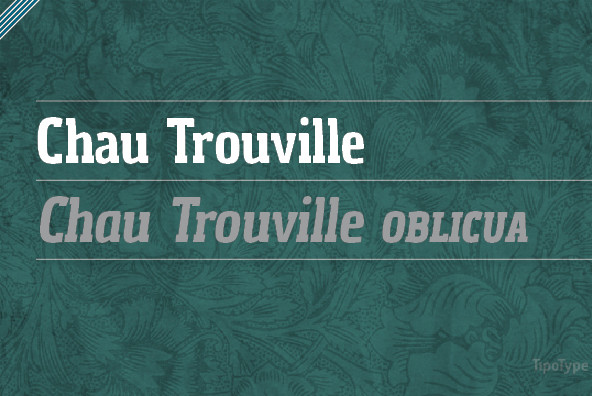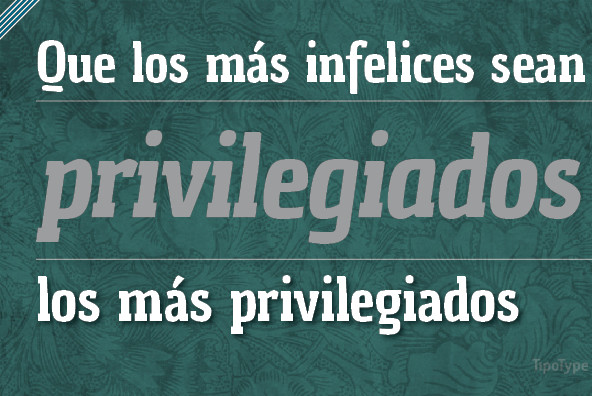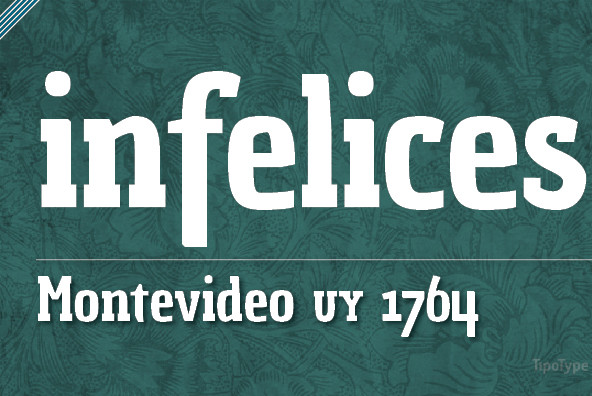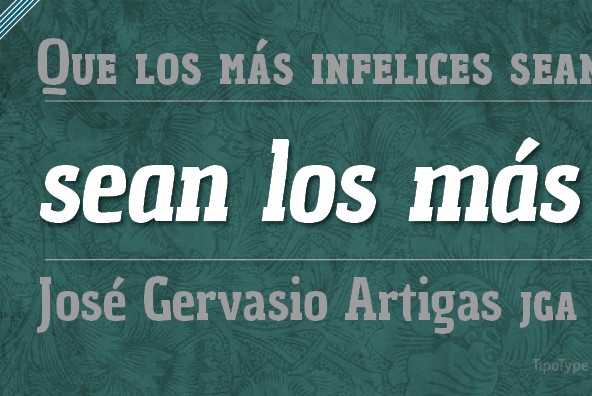
Chau Trouville
Foundry: TipoType
Trouville is part of the Chau family, is the rounded version. These typefaces are ideal for headlines. Are condensed and robust: they have impact and saving space.